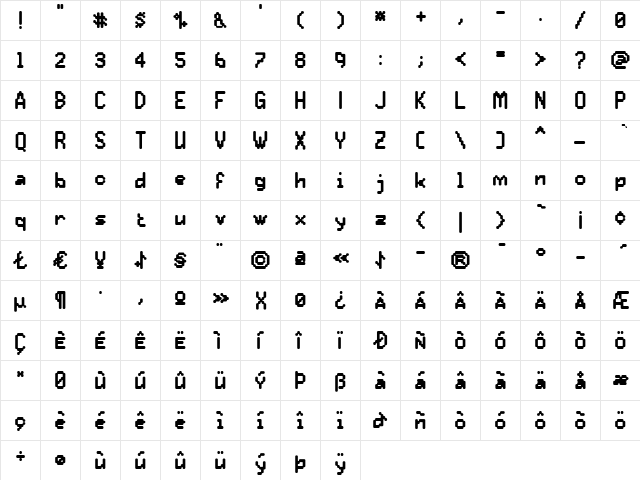
Praxis Bold Font Preview
Praxis Bold
Praxis Bold Font Details
Design Context for Praxis Typeface
Praxis is a composed and adaptable typeface that performs quietly and consistently across a wide range of design contexts. Its bold stroke weight gives it real presence on the page.